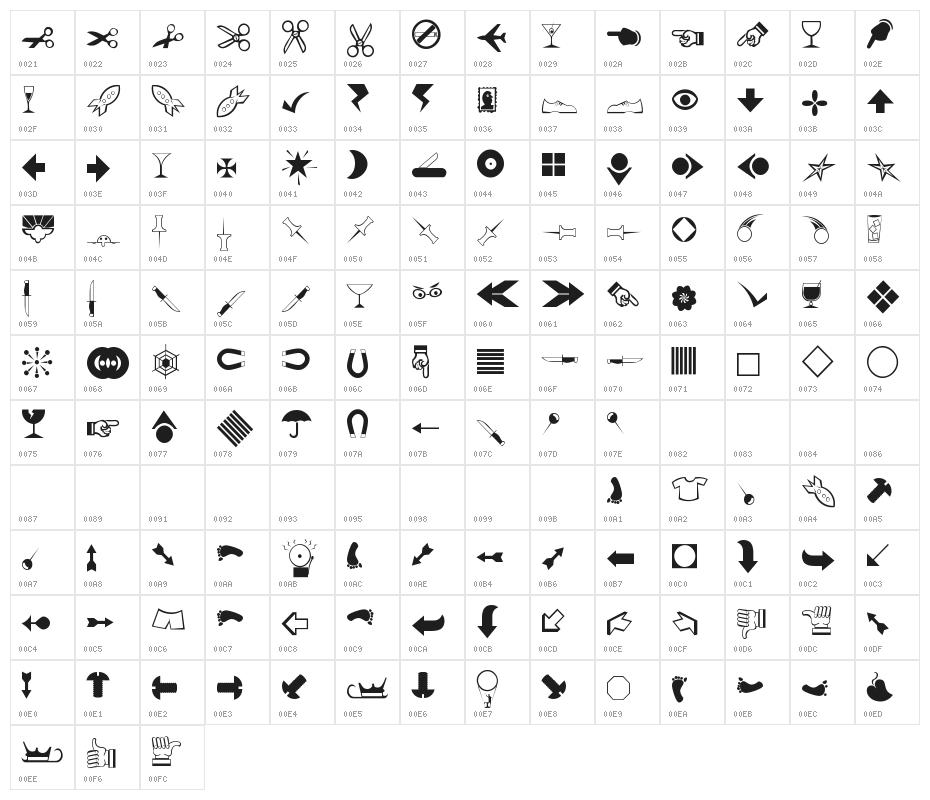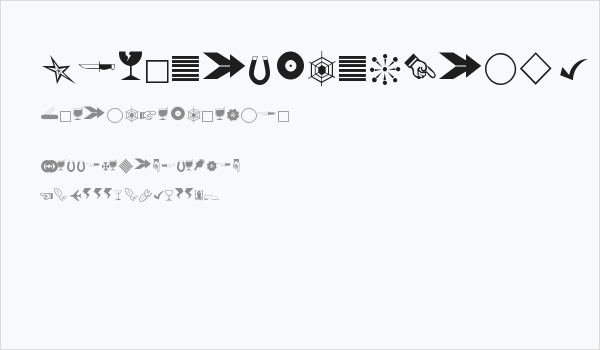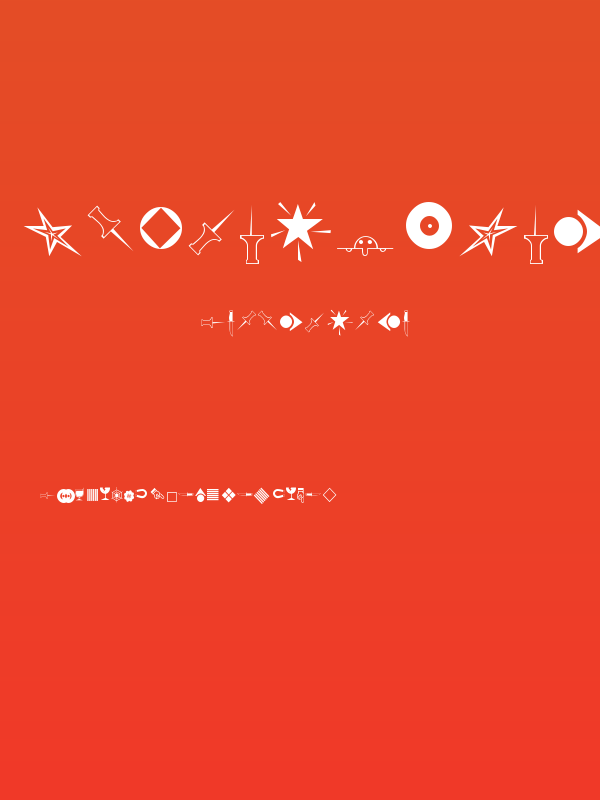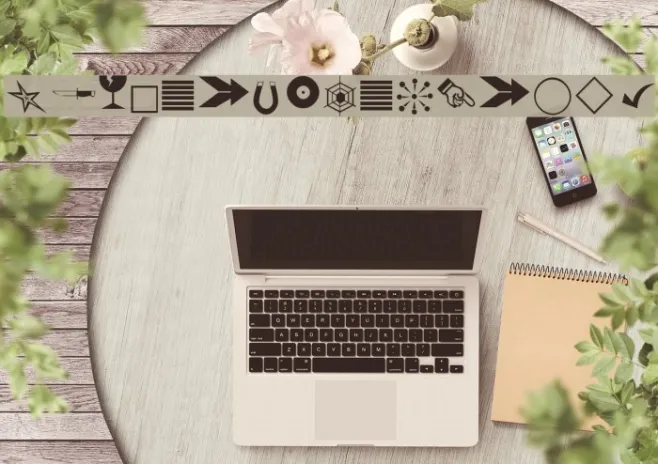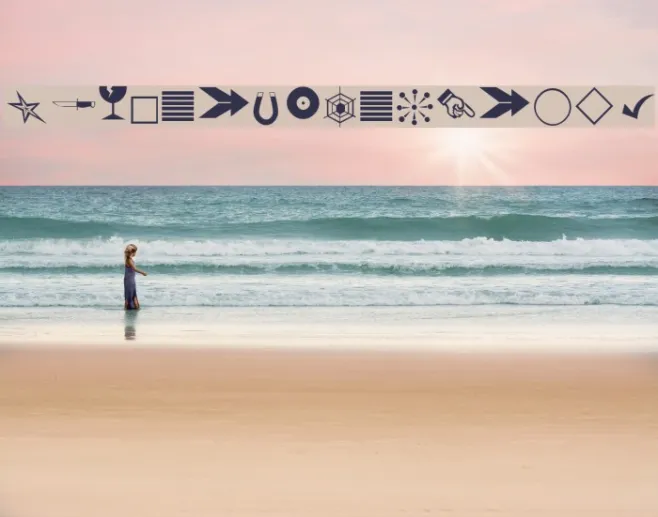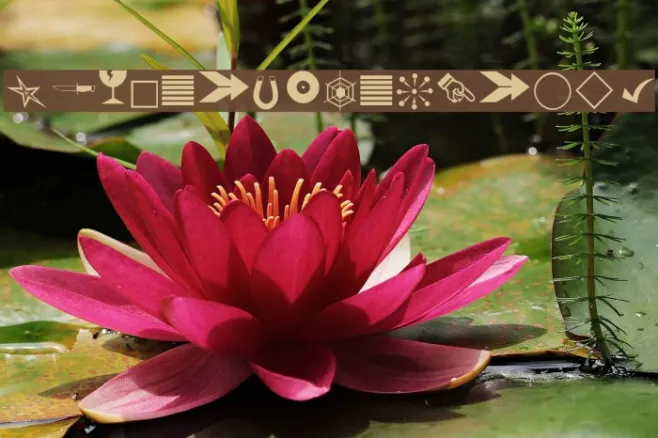
Journal Dingbats 3 Font
Journal Dingbats 3 Description
This collection features a diverse range of dingbats, showcasing a variety of symbols and icons. The designs include geometric shapes, arrows, stars, and everyday objects like scissors, glasses, and hands. Each symbol is crafted with bold, clean lines, offering a distinct and easily recognizable appearance. The set is versatile, providing both simple and intricate designs that can be used to add visual interest to projects. The icons are suitable for decorative purposes, enhancing layouts with a playful or thematic touch. The consistent style across the set ensures a cohesive look when multiple symbols are used together.
| Use Case | Logos, Decorative elements, Illustrations |
| Proposed Projects | Ideal for graphic design projects, scrapbooking, decorative borders, and thematic illustrations. |